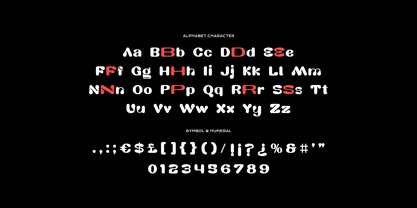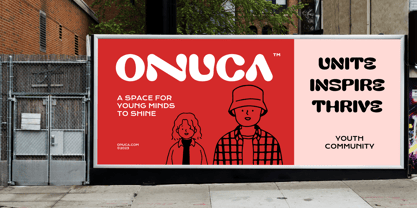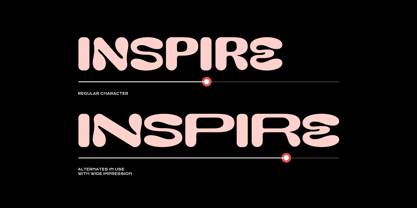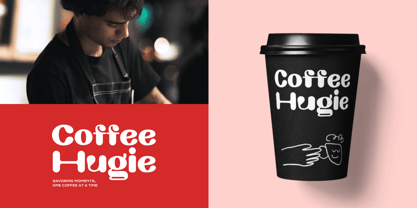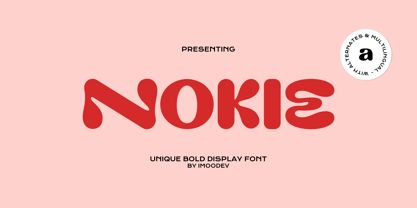
Nokie
by Imoodev
The Nokie Font Family was designed by Aulia Savira Putri and published by Imoodev. Nokie contains 1 styles. More about this family
The "Nokie" font is a bold and playful display typeface. It features thick, rounded letters with a very fluid and somewhat irregular style that gives it a casual and friendly vibe.
The overall font letters is very modern and could be particularly effective for eye-catching headings, brand logos, digital media, poster, branding, especially for corporate targeting a youthful audience, advertising, particularly in outdoor and large-scale formats like billboards or banners, social media campaigns, or any creative project.
Designers: Aulia Savira Putri
Foundry: Imoodev